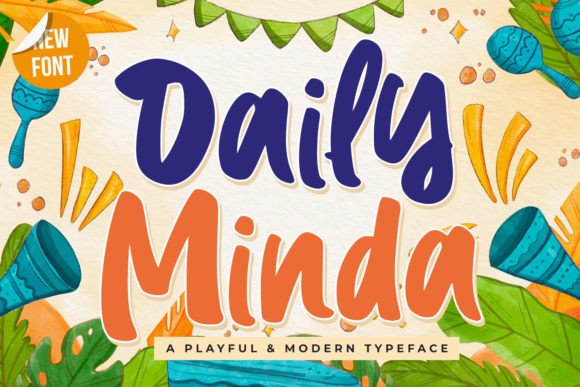
Prepare to be captivated by Daily Minda, the display font that's bursting with charm and personality. Its whimsical nature will ignite your imagination, transforming your creative projects into masterpieces.
Picture this: the joyous laughter of children echoing through the air as they gather for a celebration filled with magic and wonder. Daily Minda is the perfect font to capture the essence of these precious moments, adding a touch of enchantment to every invitation and keepsake.
But Daily Minda's allure extends far beyond children's parties. Its playful style lends itself seamlessly to a symphony of creative endeavors. Envision elegant wedding invitations that exude romance and sophistication, or enchanting stationary art that transports you to a world of dreams.
With Daily Minda, social media posts become vibrant expressions of self, captivating audiences with their eye-catching appeal. Whether you're sharing travel adventures, showcasing your culinary creations, or simply connecting with friends, this font will elevate your content to new heights.
So, embark on a typographic journey with Daily Minda, where each letter dances with delight and every word tells a captivating story. Let its whimsical charm ignite your creativity and transform your designs into unforgettable experiences.